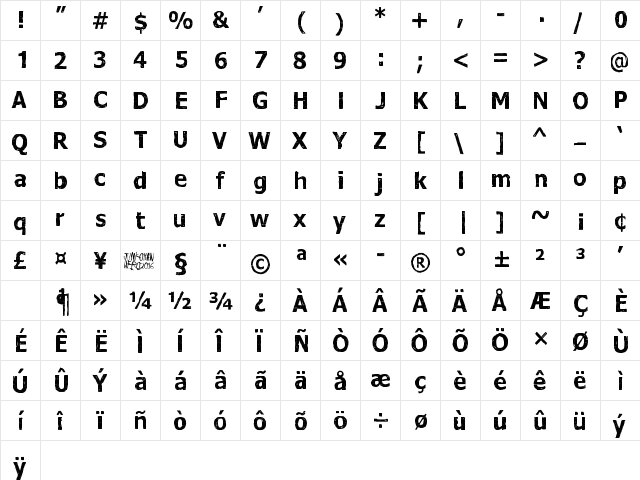
Dead end Regular
Design Context for Dead end Typeface
Dead end offers clean, dependable letterforms without strong stylistic allegiance, making it a practical choice for designers who need flexibility.